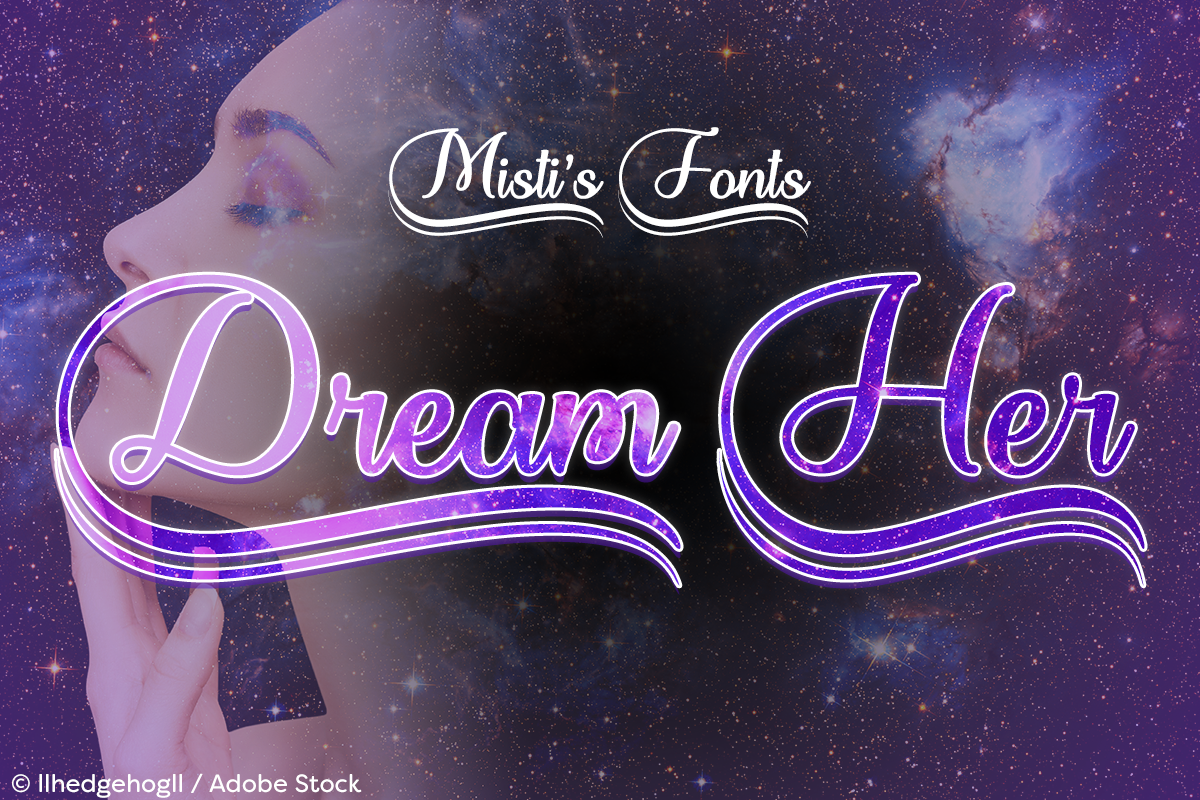
Dream Her is an elegant, calligraphy typeface that is perfect for wedding invites, logos, menus, book covers, and so much more!
I have included many “decorative” alternates, which are available as OpenType ligatures, as well as, PUA encoded to be used in any program!
– Each uppercase letter has swashes in 21 different lengths to add additional flair and style to your projects!